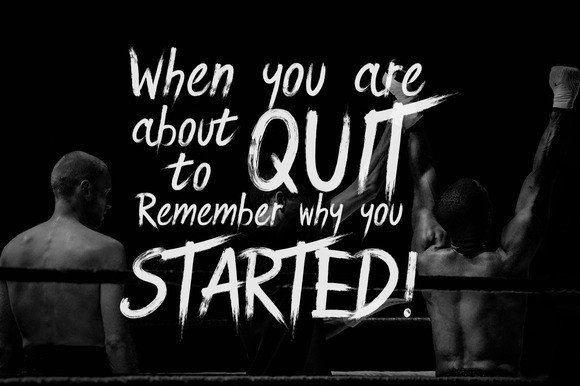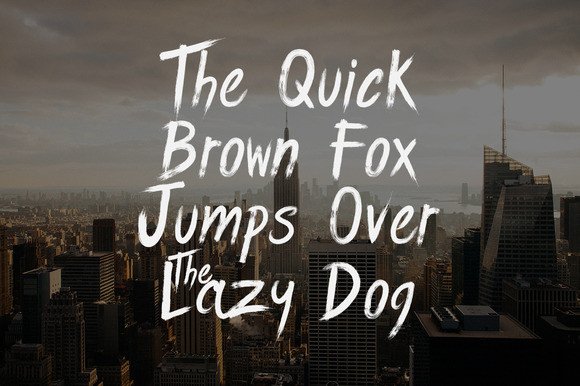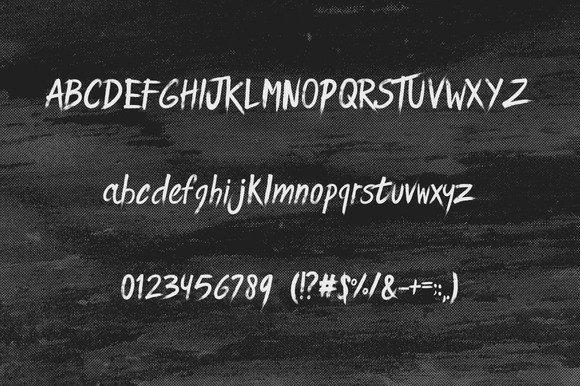
Introduction to Ndugal Society Font Font
Fonts play a crucial role in design, and the Ndugal Society Font font is a typeface that brings both character and versatility to any project. Whether you’re working on a branding project, a website, or a print design, the Ndugal Society Font font offers a unique style that can elevate your work.
This unique typeface can be used for various projects such as heading, logos, posters, logos, invitations, greeting cards, book covers, and much more.
This unique typeface can be used for various projects such as heading, logos, posters, logos, invitations, greeting cards, book covers, and much more!
Key Features of Ndugal Society Font Font
Why Choose Ndugal Society Font Font?
The Ndugal Society Font font is more than just a typeface – it’s a design tool that helps you communicate your message with style and clarity. Its unique character set and versatile design make it suitable for a wide range of applications, from elegant invitations to bold headlines.
With its carefully crafted letterforms and balanced proportions, the Ndugal Society Font font ensures readability and visual appeal across all mediums.
What makes Ndugal Society Font font special?
The Ndugal Society Font font stands out with its unique design, exceptional readability, and versatility across various design applications.